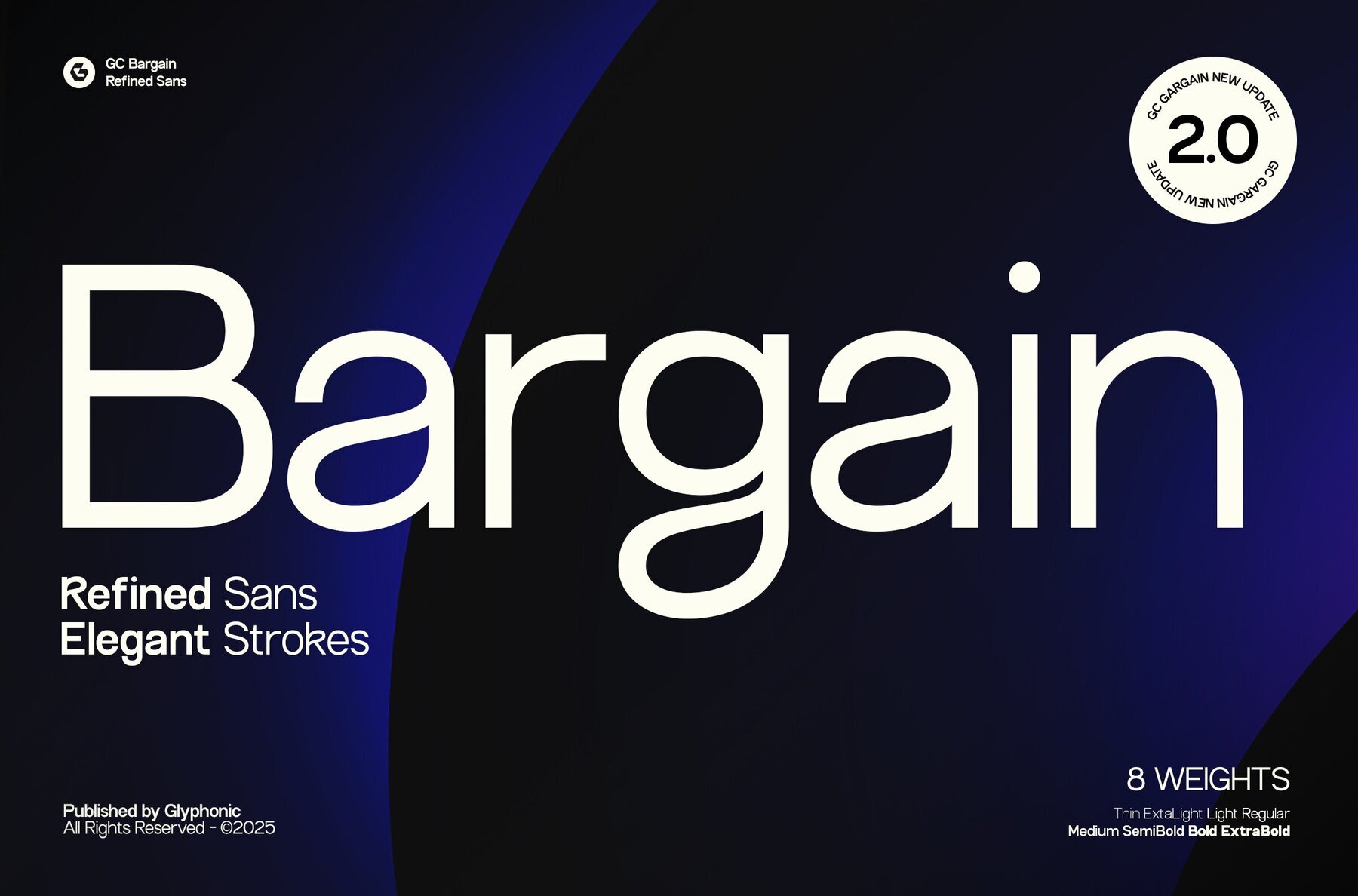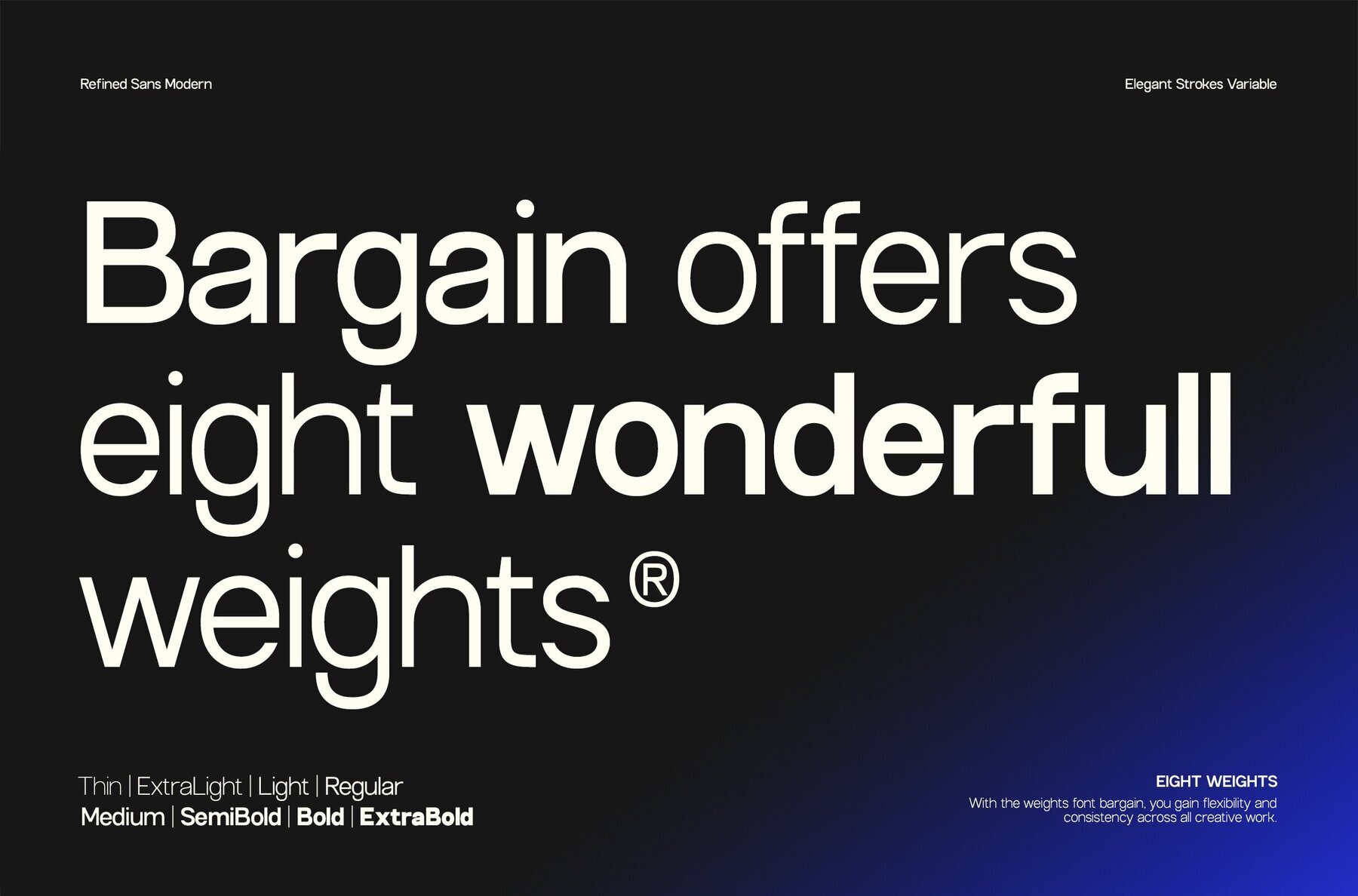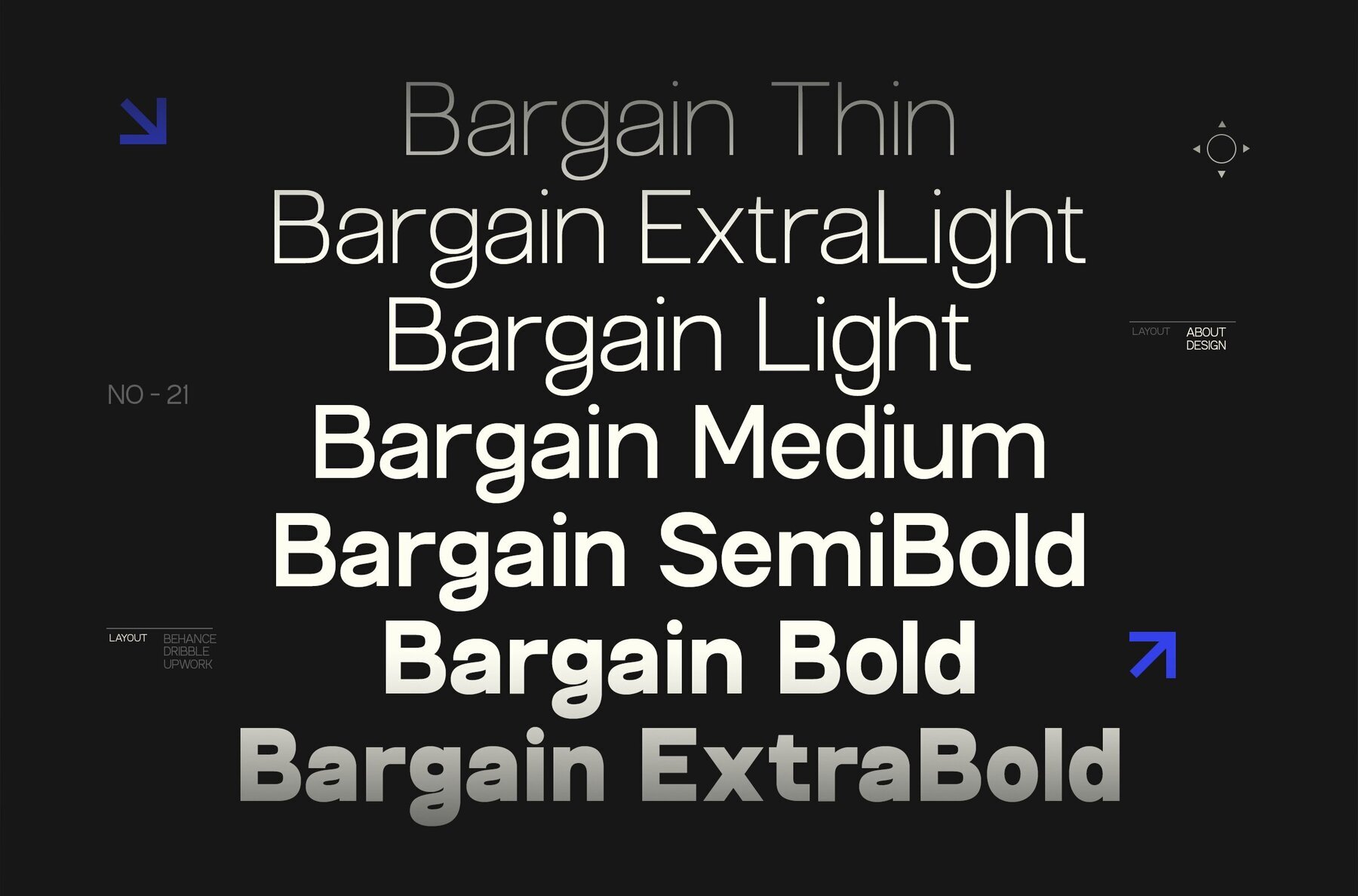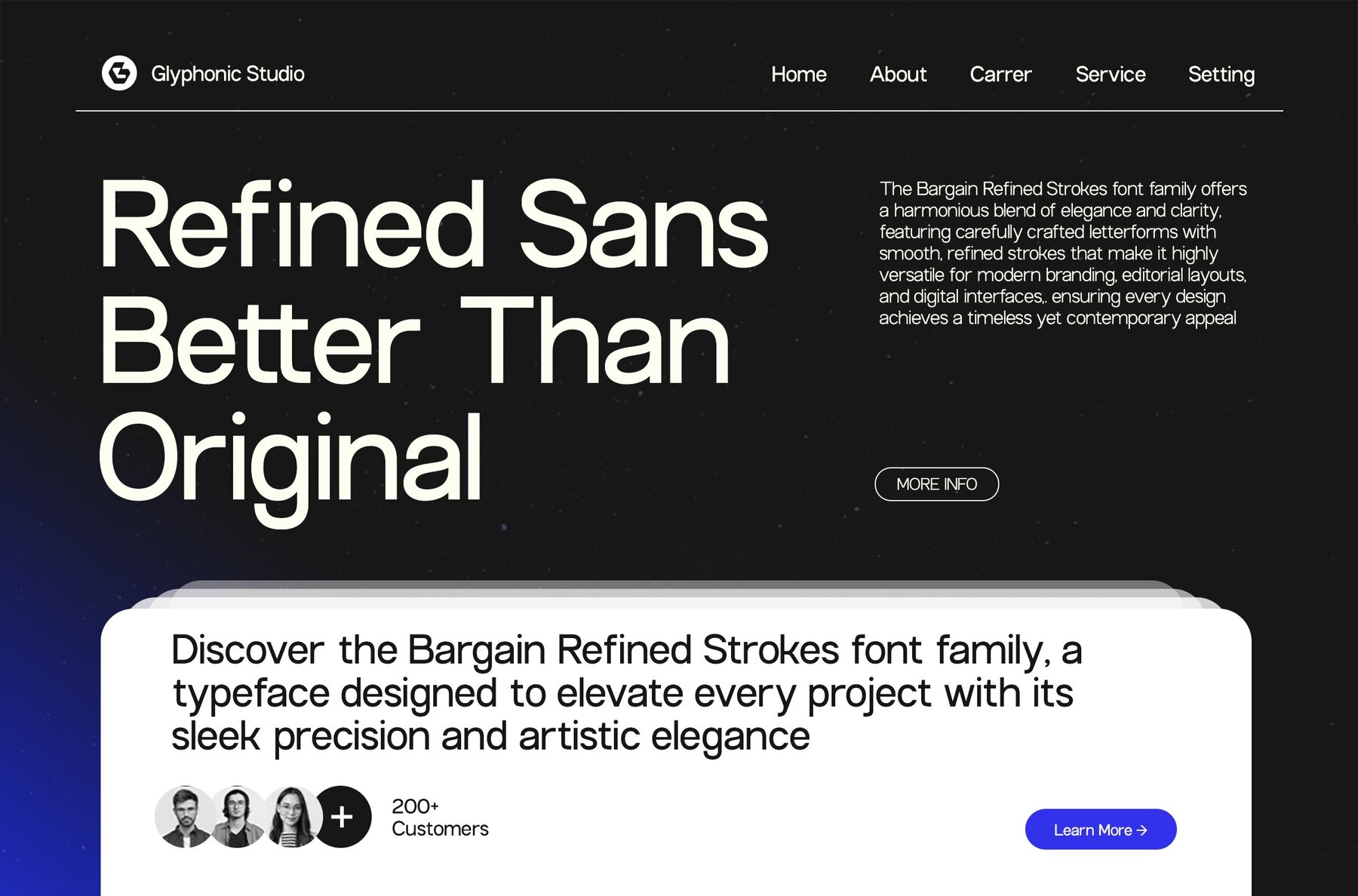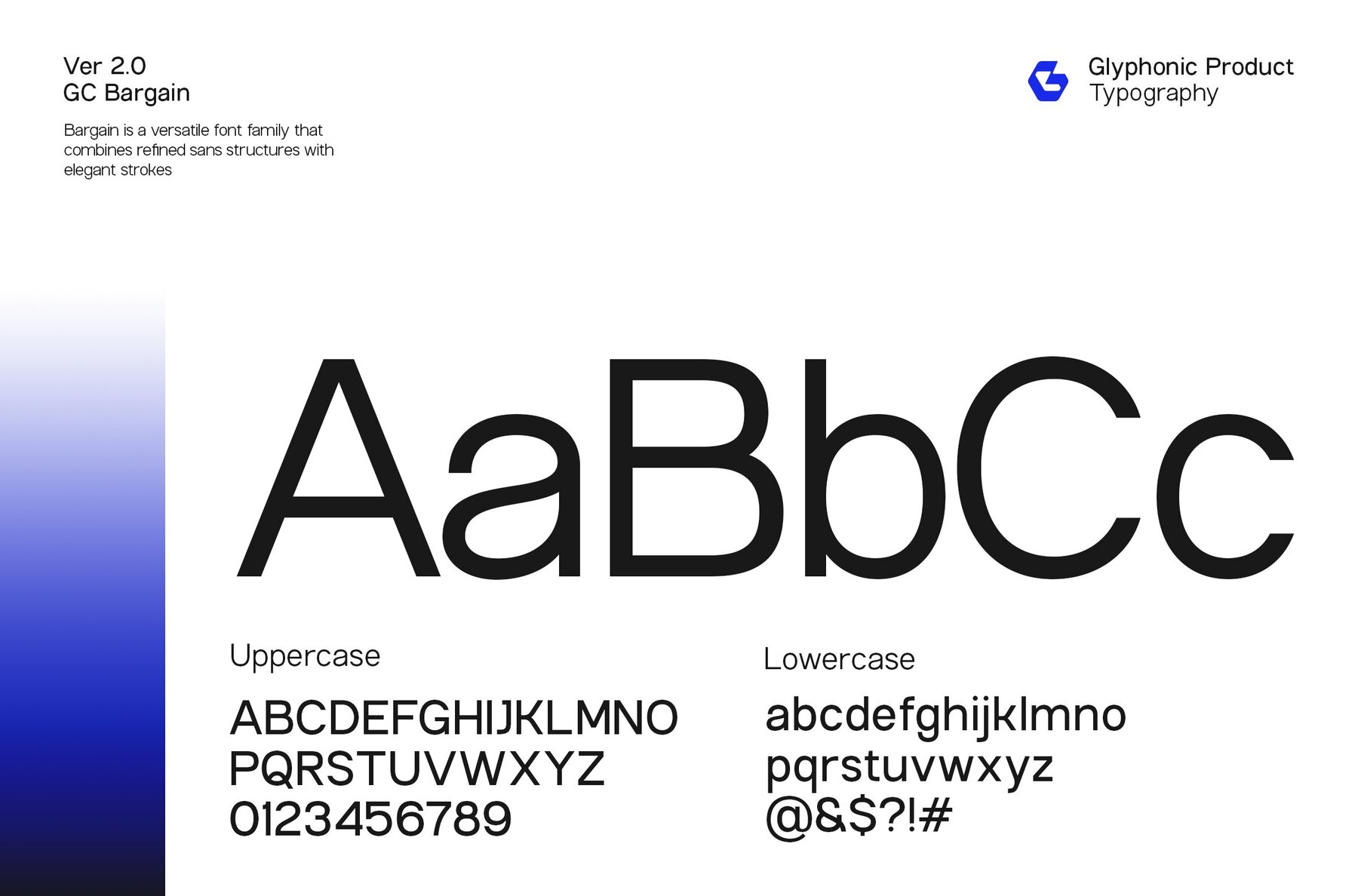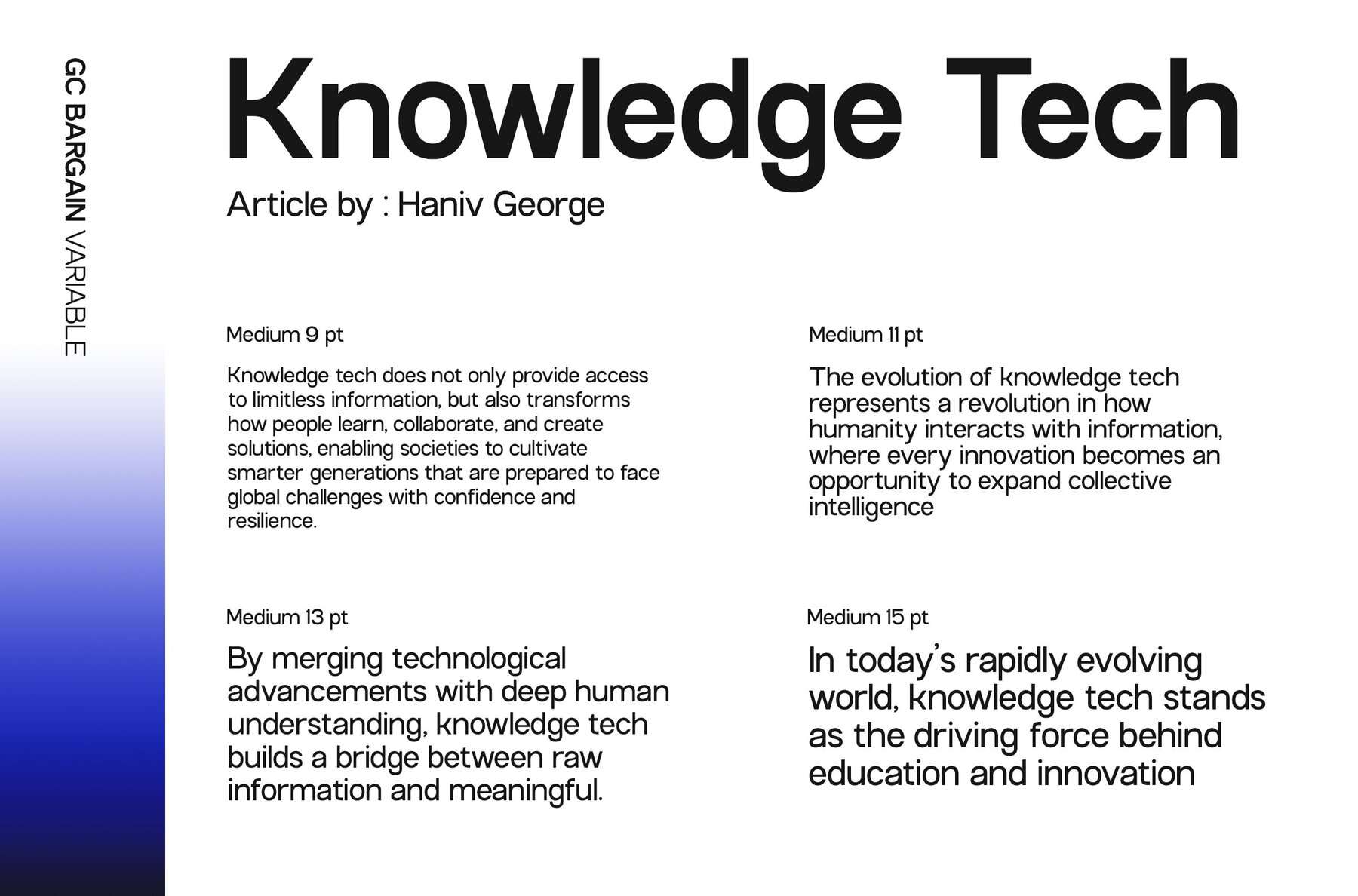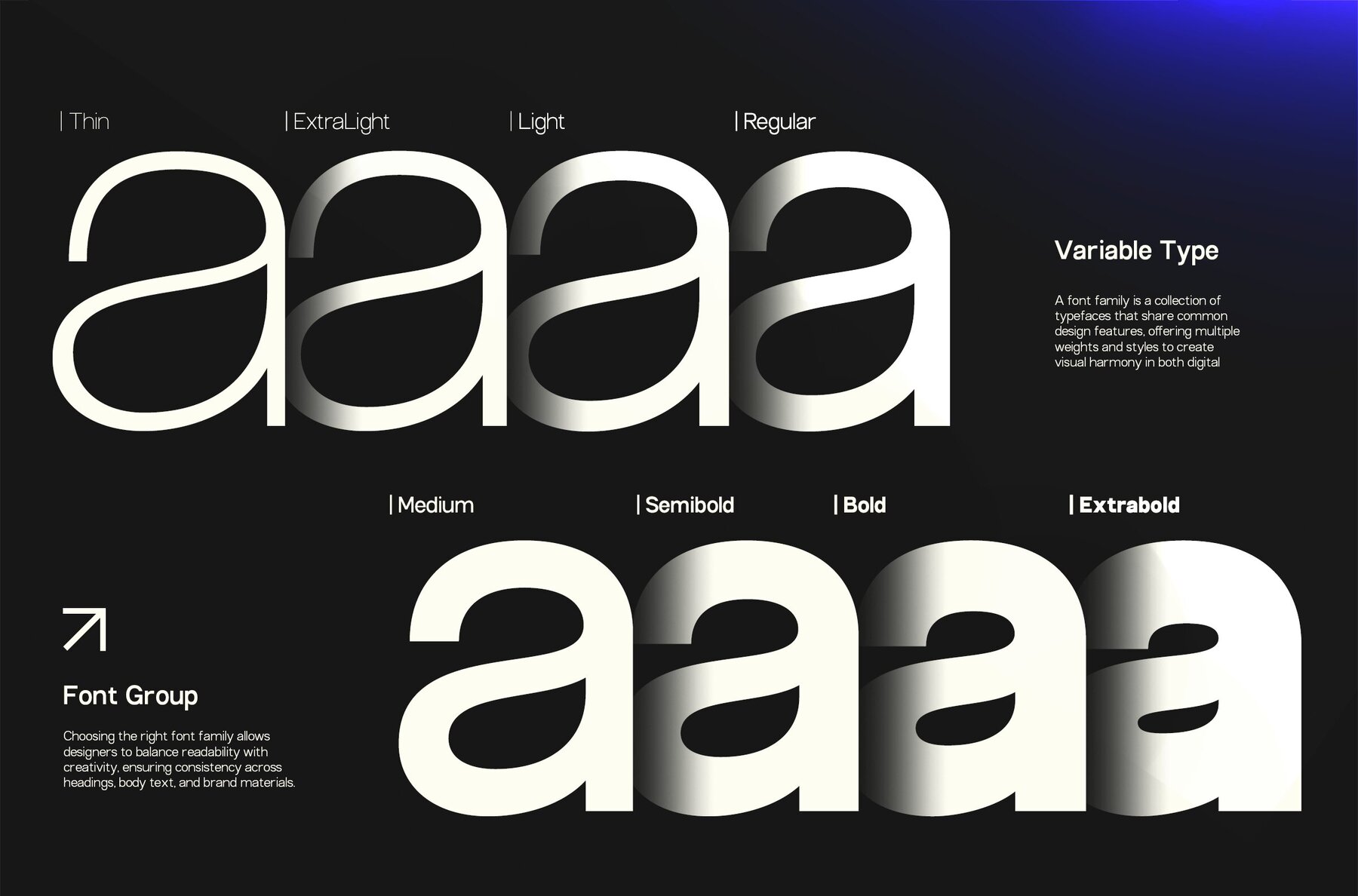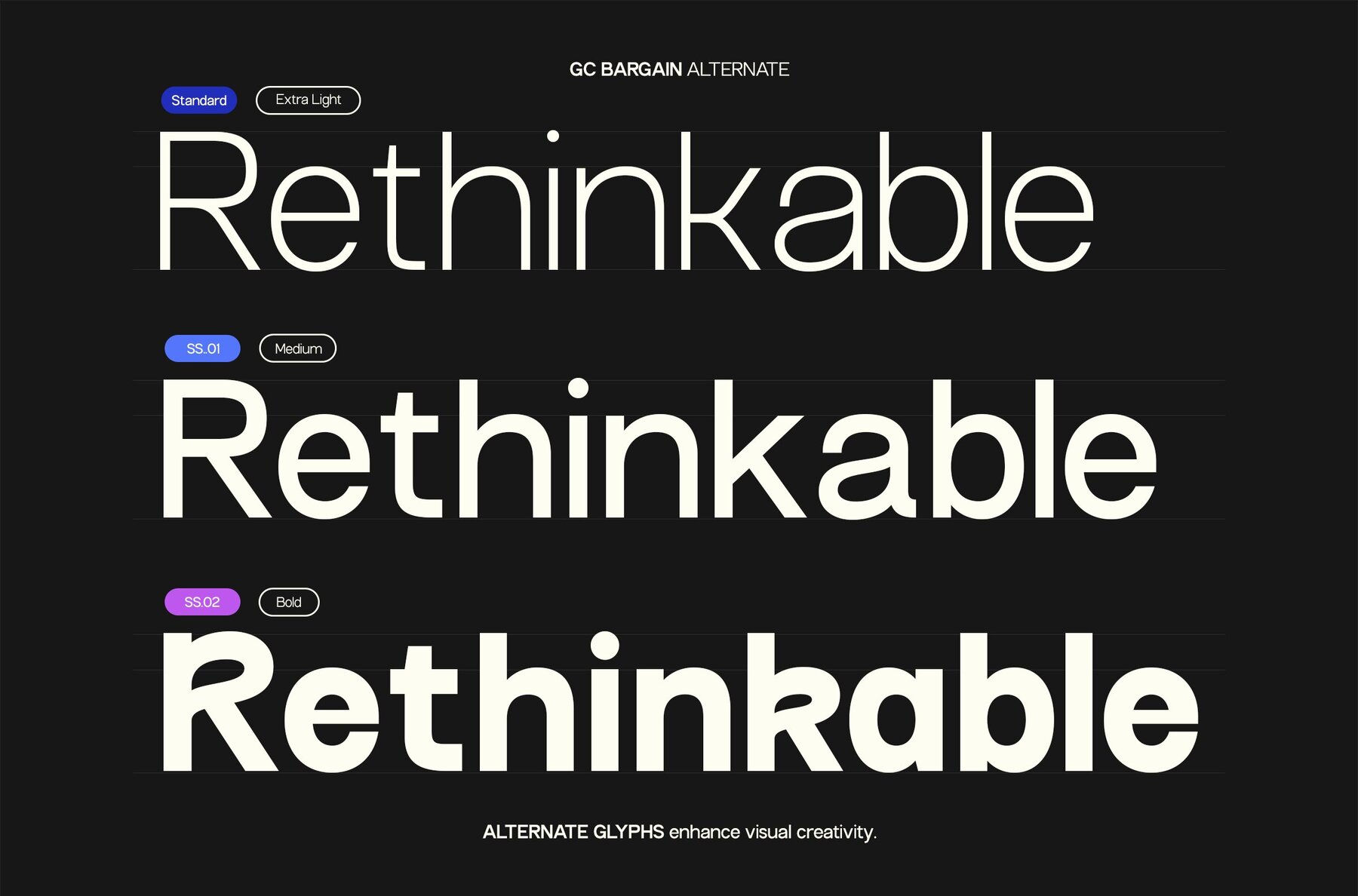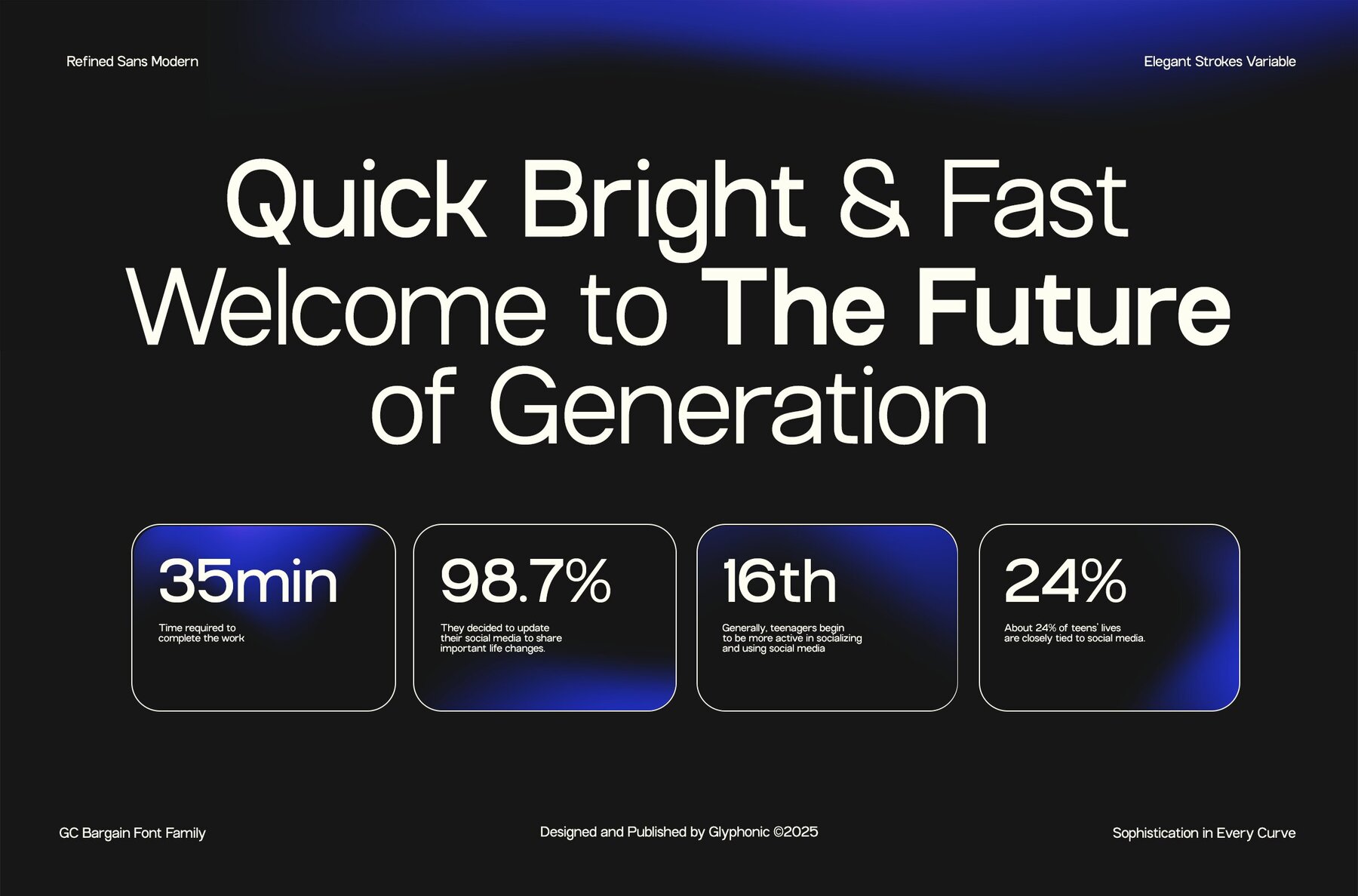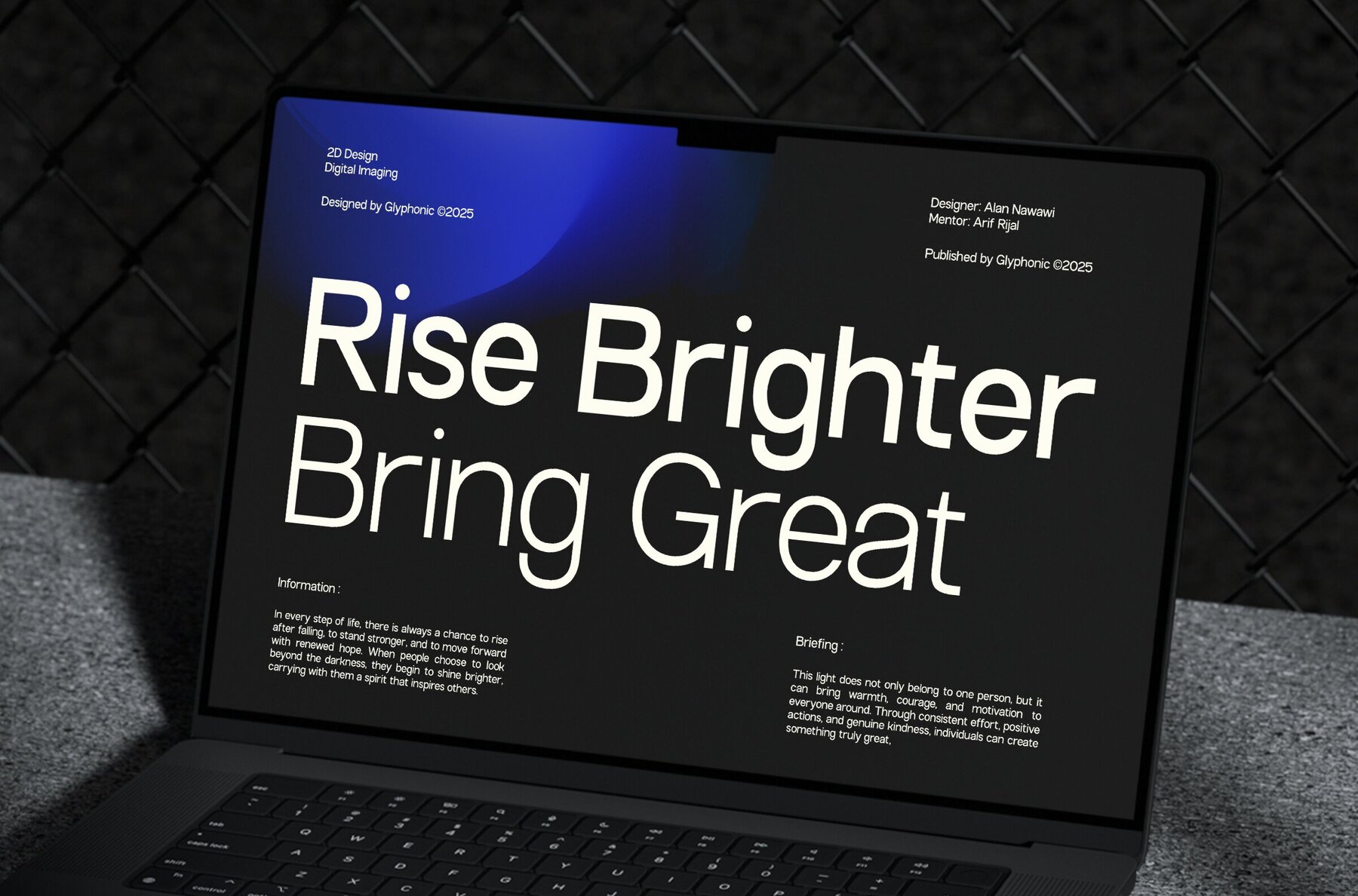
GC Bargain Font
GC Bargain is an expanded sans-serif typeface family blending modern simplicity with functional clarity. Redesigned to include a complete family of various weights and styles, this typeface offers unparalleled flexibility for your creative endeavors. Its design ensures readability and versatility, making it ideal for headlines, branding, logos, packaging, editorial layouts, and digital interfaces. GC Bargain delivers a clean and confident visual message across all media landscapes. The typeface is characterized by low-contrast strokes, generous spacing, and balanced proportions, maintaining a sleek and timeless neutrality. The extended family range adapts seamlessly for bold statements as well as refined text, making it an excellent choice for modern design systems and minimalist layouts, perfectly suiting tech branding and everyday creative projects. Features: The updated GC Bargain Family brings clarity and modern elegance to your designs.GC Bargain: Modern Simplicity and Versatile Design